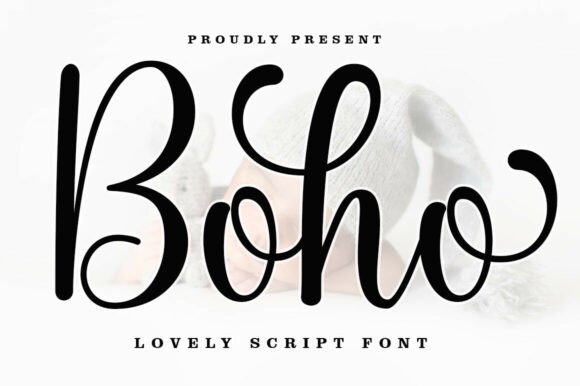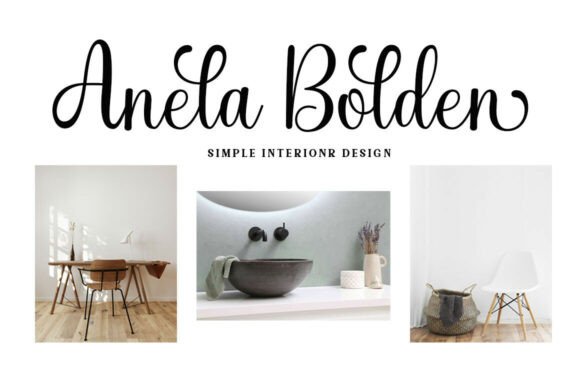
Boho Font
Boho Script is a modern script font that features a classic and elegant touch.
Boho Script is appealing because it is sleek, clean, feminine, sensual, glamorous, simple, and very readable, thanks to its many fancy letter connections. I also offer a number of decent style alternatives for some of the letters. The classic style is perfect for use in various formal forms such as invitations, labels, restaurant menus, logos, fashion, makeup, stationery, novels, magazines, books, greeting/wedding cards, packaging, labels, or any type of advertising purposes.